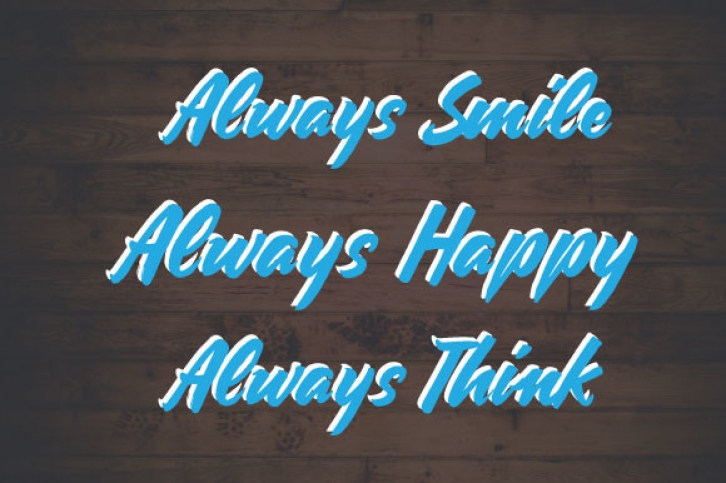
Always Smile, Always Happy, Always Think is an adaptable and free flowing script font. It looks great on wedding invitations, stationary art, social media posts, and greeting cards.